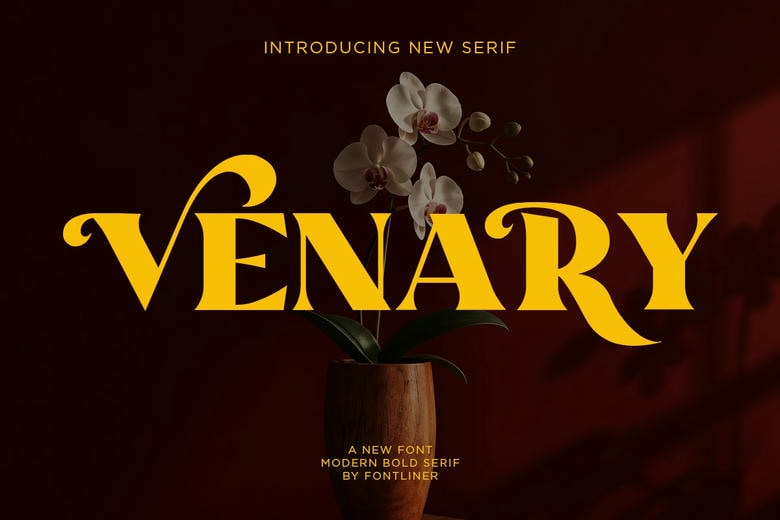
Venary Font
Venary is a display serif font designed for fashion projects. It brings elegance, character, and an editorial feel to modern designs. Its expressive curves, bold contrasts, and decorative details give it a distinctive look.
Venary is a great choice for fashion branding, luxury logos, magazine covers, beauty packaging, perfume labels, jewelry brands, boutique identities, posters, invitations, and social media.
Venary Elegant Fashion Serif Font